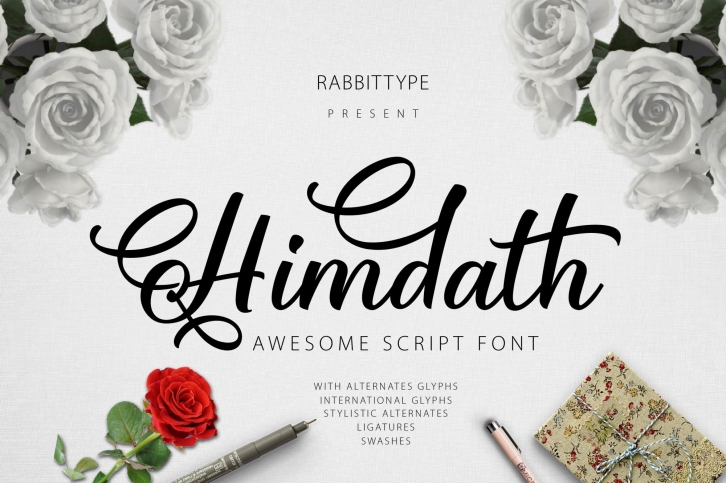
HIMDATH Script is a gorgeous font that was realeased on November 25, 2016. The font can be used in many style contexts and design environments. Perfect for invitations, magazines, websites, logos, and more! It was designed by OlexStudio and the file size is 7.55 MB. Thanks for checking out this font!